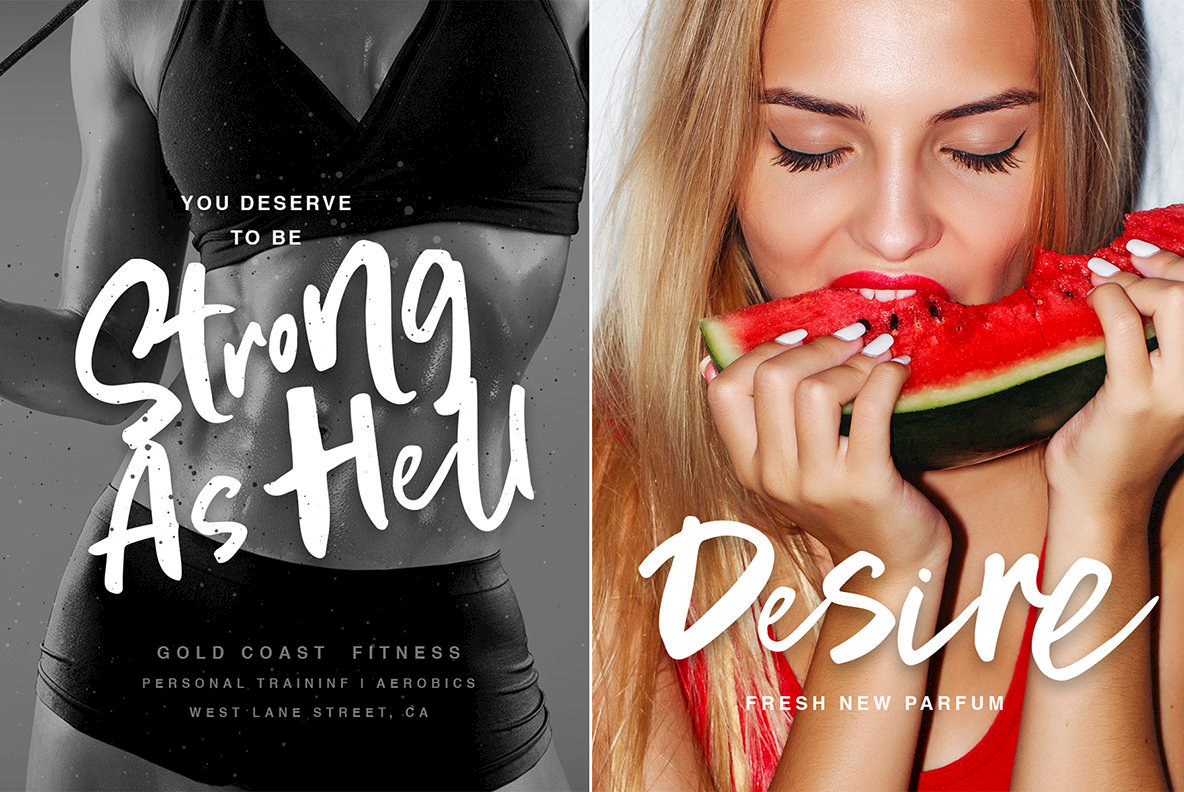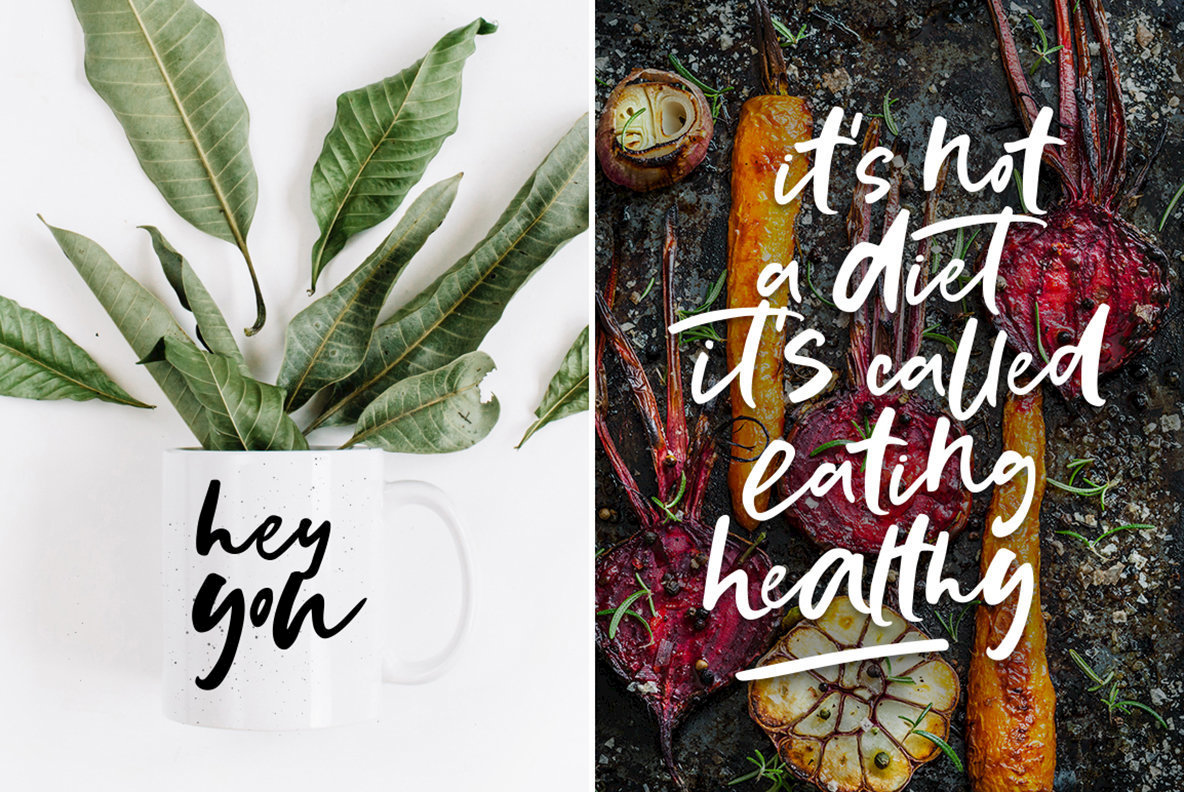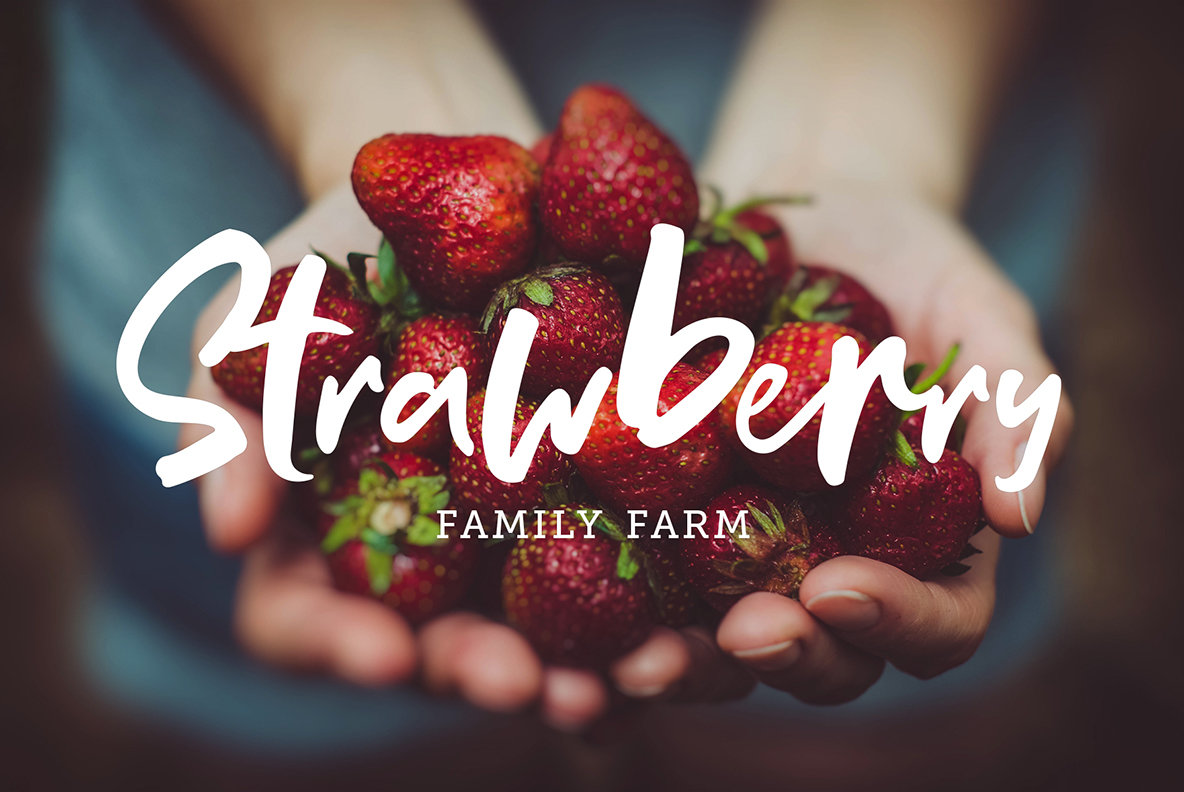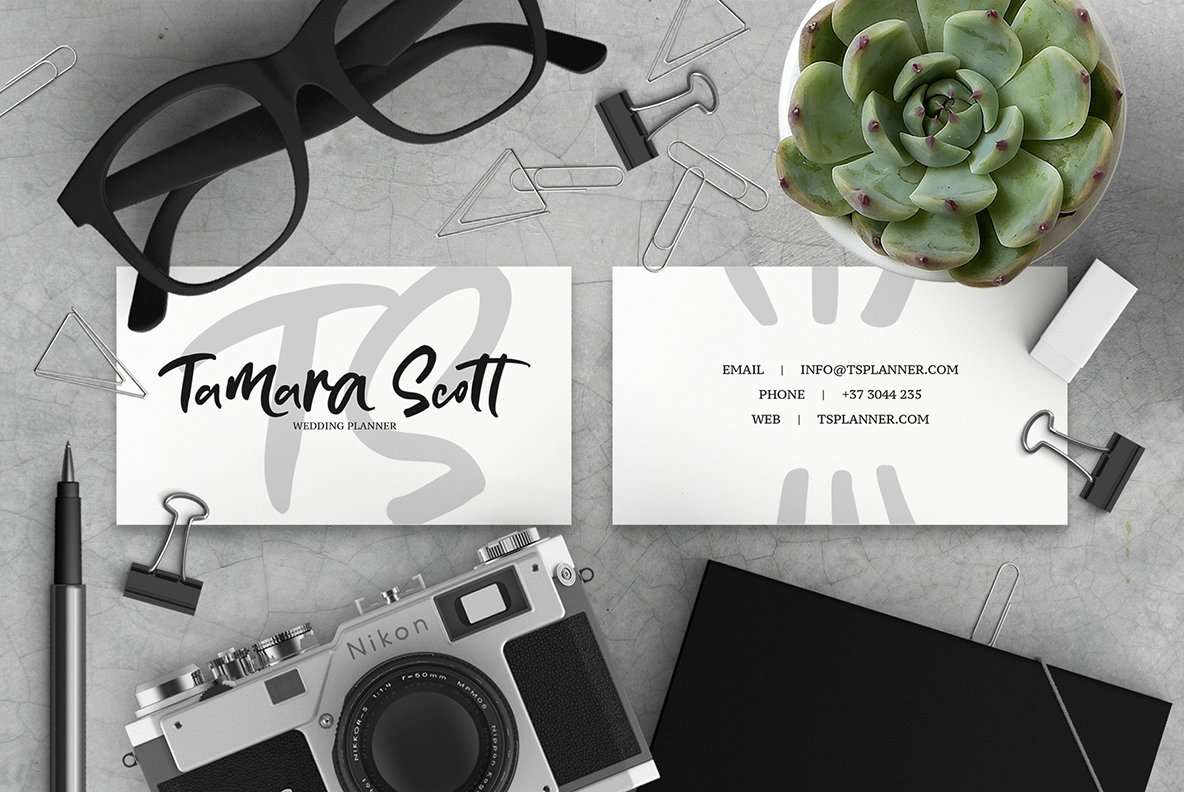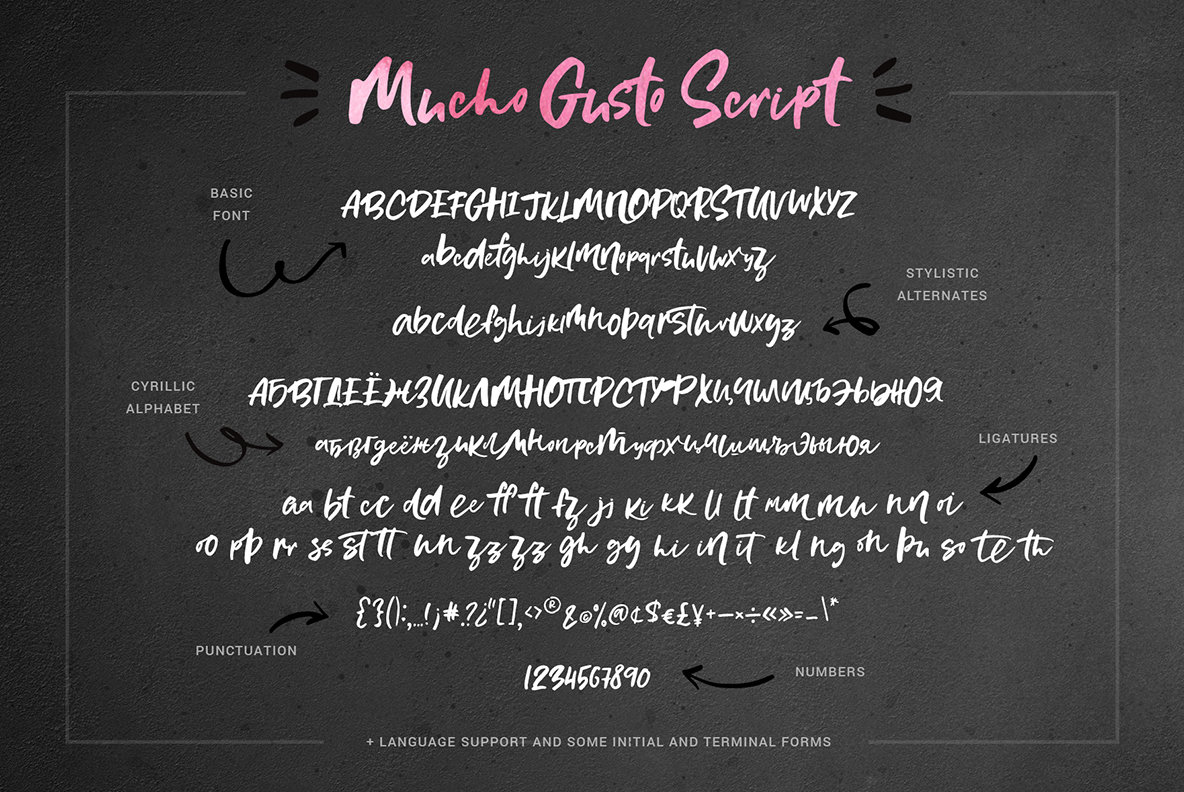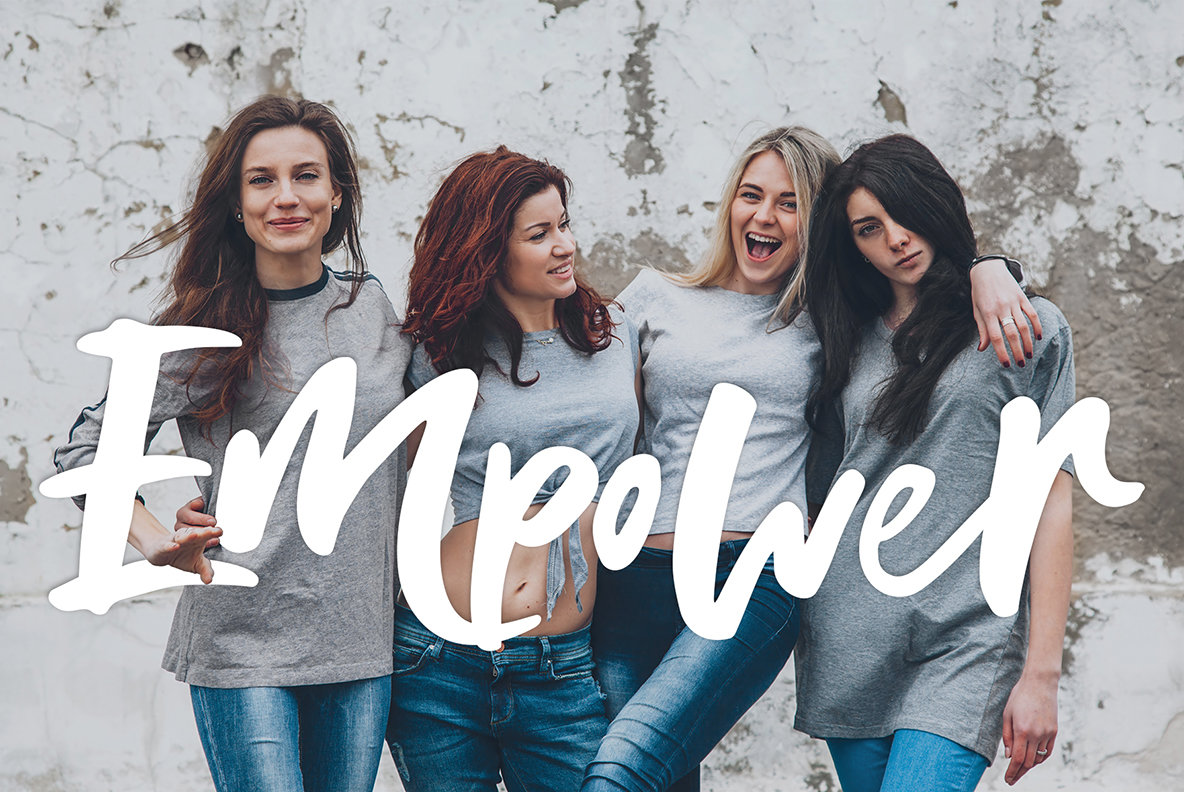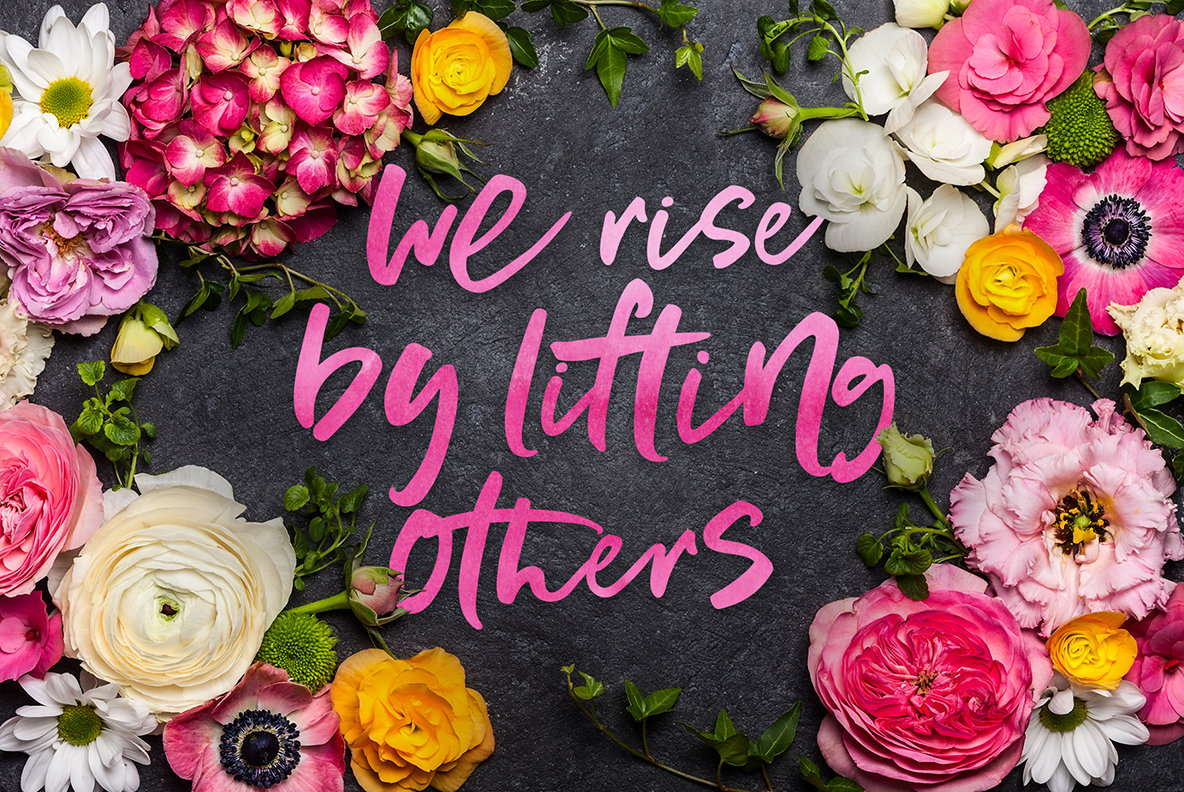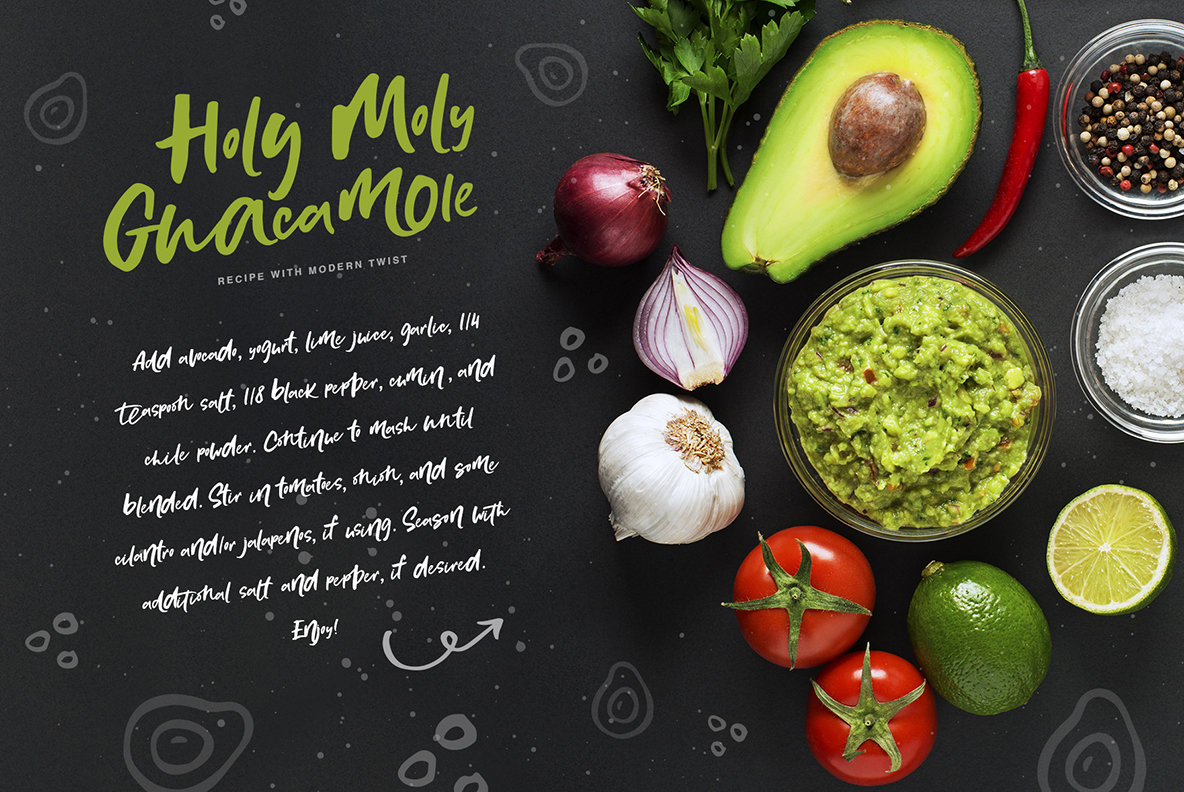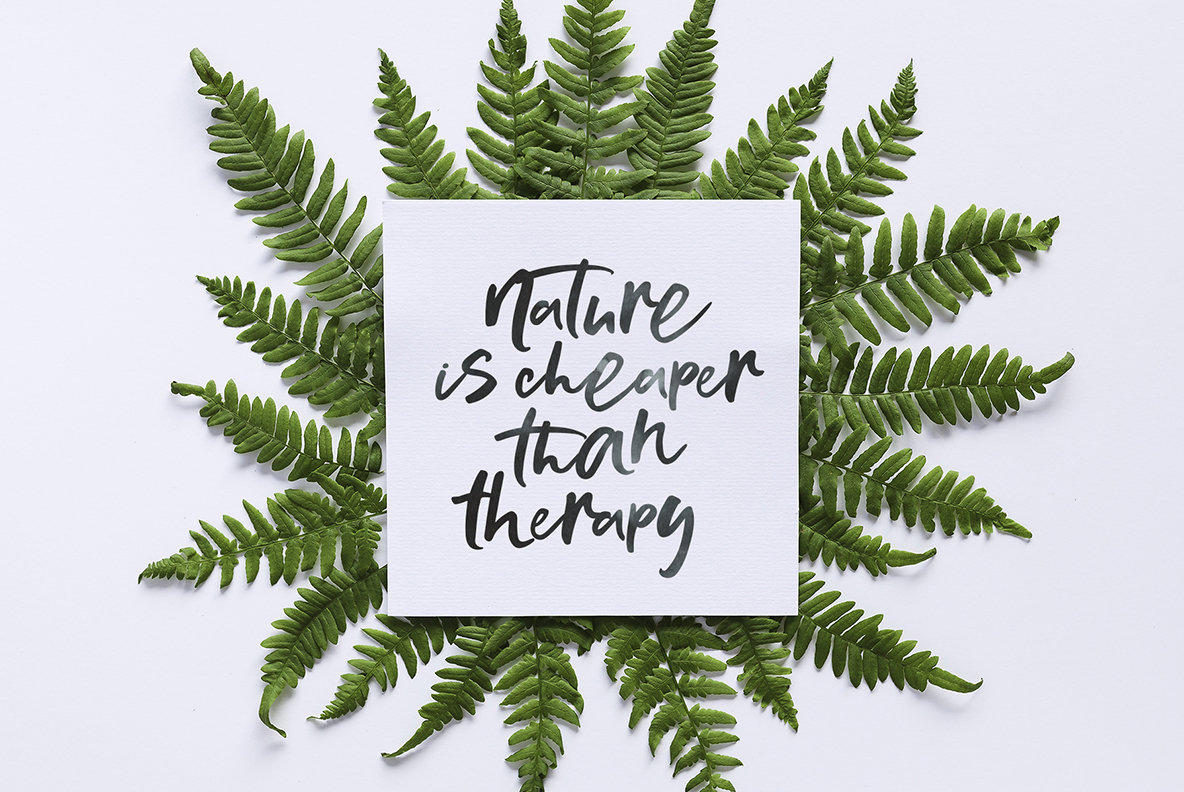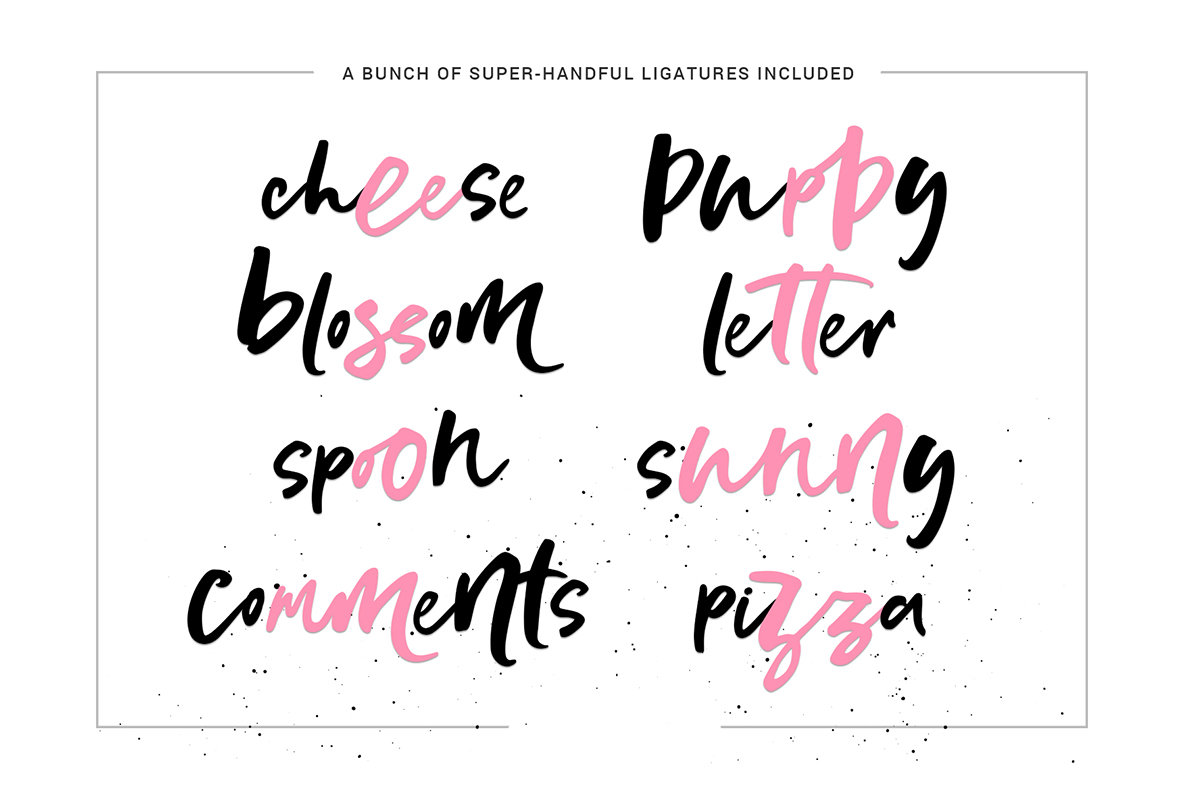
Mucho Gusto Font
Mucho Gusto, a captivating font family designed by Favete Art, includes a script font, hand-lettered extras, and playful doodles. Conceived with the food industry in mind, this set is ideal for enhancing menus, restaurant branding, and recipe cards. Its versatility, however, knows no bounds, as it looks equally stunning on product packaging, mugs, and various other applications. This well-rounded, hand-drawn script font was crafted with a round brush and ink, characterized by a dancing baseline. This energetic yet legible font features varying letter sizes, making it both powerful and noticeable. Mucho Gusto includes a complete set of lowercase alternates to replicate custom lettering and boasts a wide array of ligatures for seamless script flow.Mucho Gusto: Dynamic Hand-Drawn Script Font